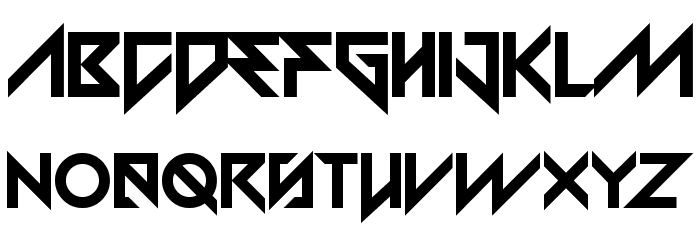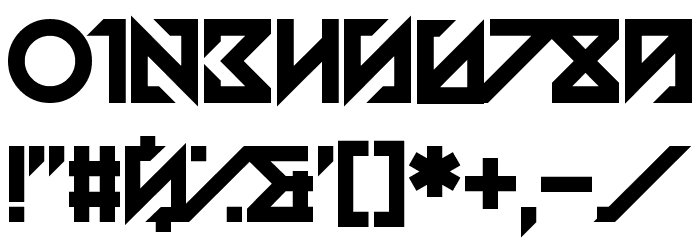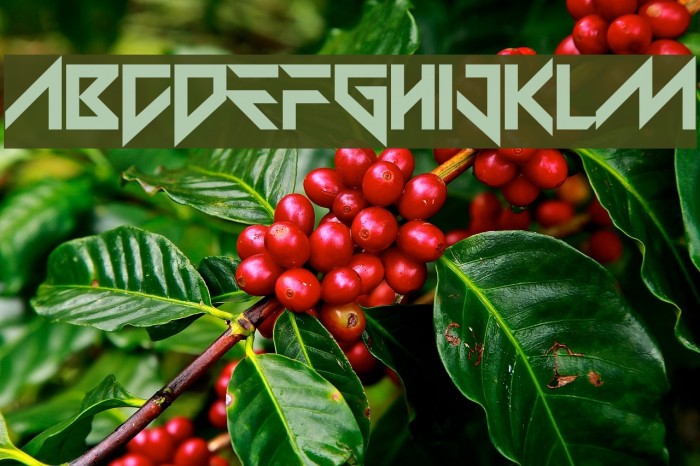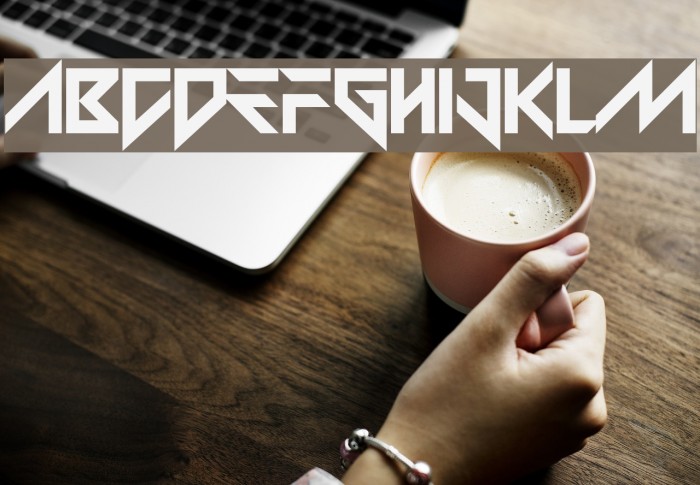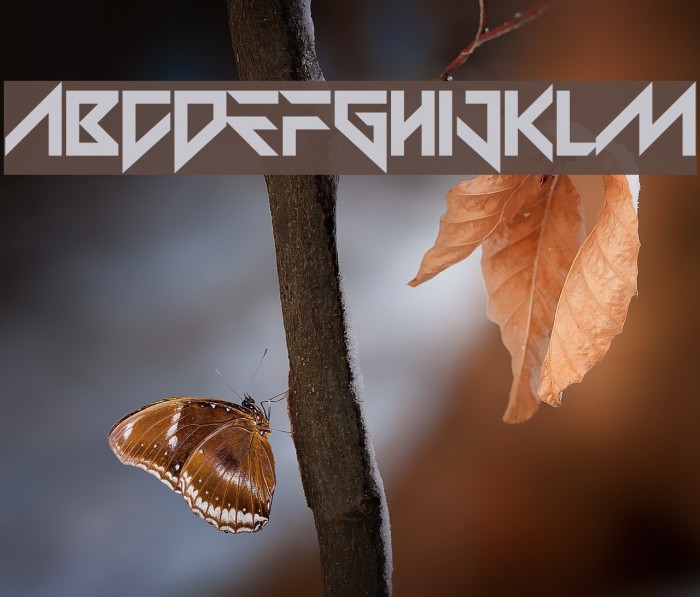
Betrayal of Mind Font
This font features a bold, angular design with sharp edges and geometric shapes, creating a futuristic and edgy appearance. The uppercase and lowercase letters maintain a consistent style, emphasizing diagonal lines and pointed tips. Numbers and special characters follow the same design principles, ensuring uniformity across all glyphs. The font's aggressive and modern aesthetic makes it suitable for projects that require a strong visual impact. Its unique style is reminiscent of sci-fi or cyberpunk themes, making it ideal for creative and unconventional designs.
A bold, angular font with a futuristic and edgy design.
- Font: Betrayal of Mind
- Proposed Projects: Ideal for sci-fi book covers, video game titles, movie posters, and branding for tech companies.
- Overall Style: Futuristic